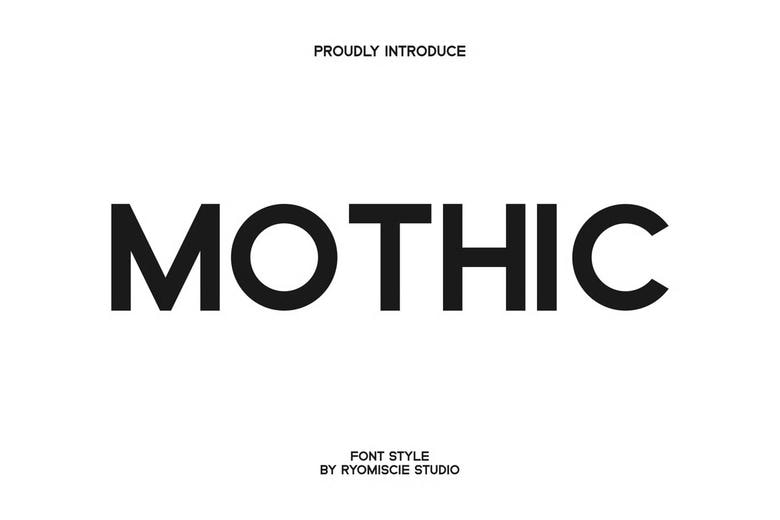
Mothic Font
Mothic is a modern sans serif font with a bold and authentic look. It works well for branding projects such as logos, esports, and more. This font stands out in many different settings.
Mothic Modern Sans Serif Font